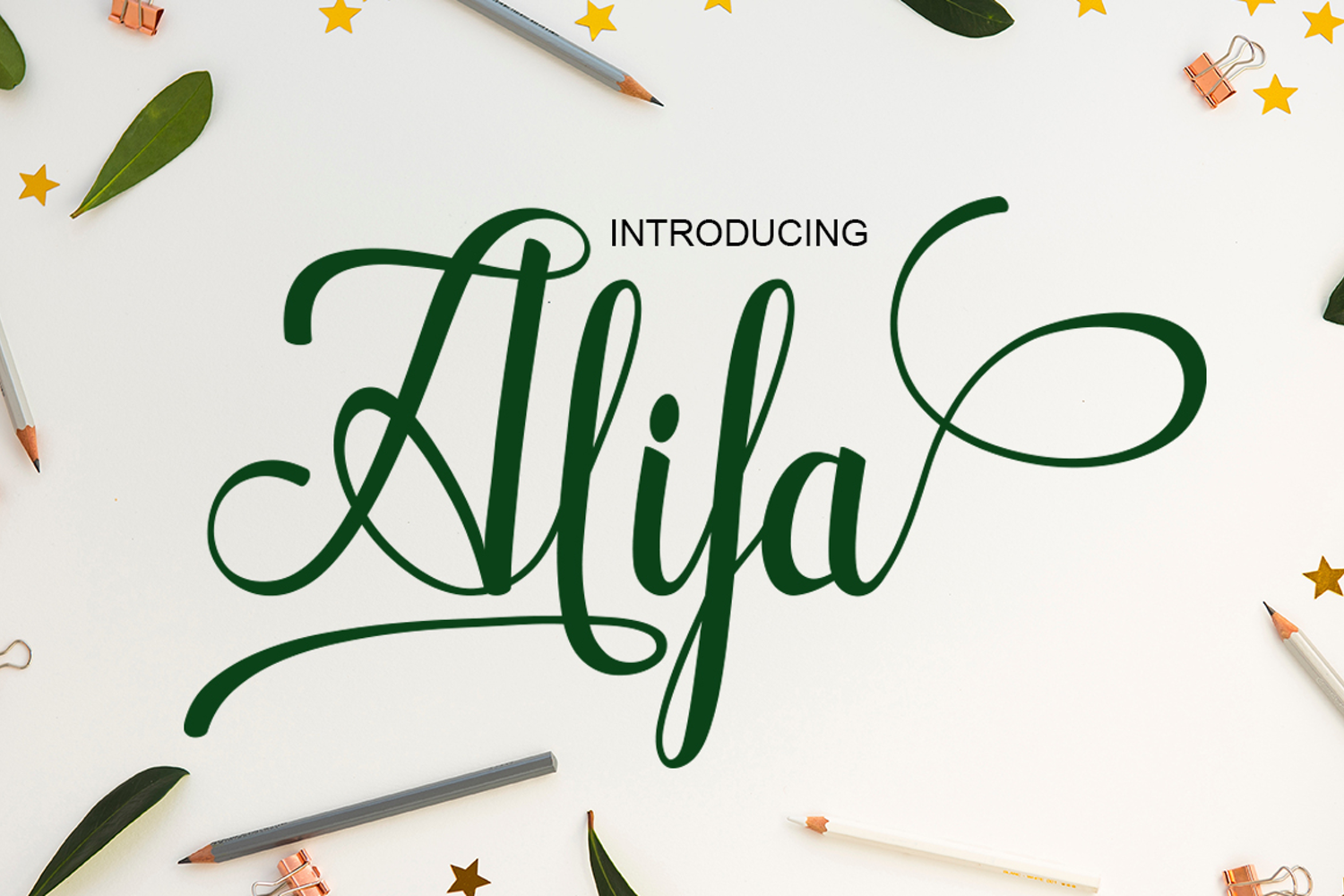
Alifa Script
Alifa
Alifa is a fresh and modern calligraphy typeface. It has decorative characters and a dancing baseline. It’s wonderful on invitations, greeting cards, branding materials and every other design that needs a striking yet elegant typeface.